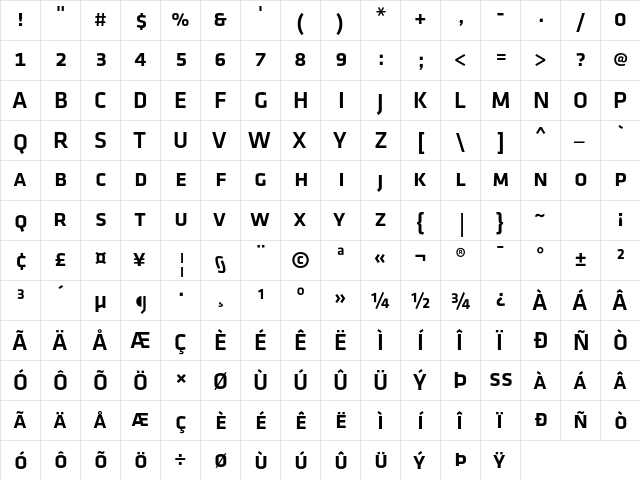
Klavika Med Caps Medium
Design Context for Klavika Med Caps Typeface
Klavika Med Caps is a composed and adaptable typeface that performs quietly and consistently across a wide range of design contexts.